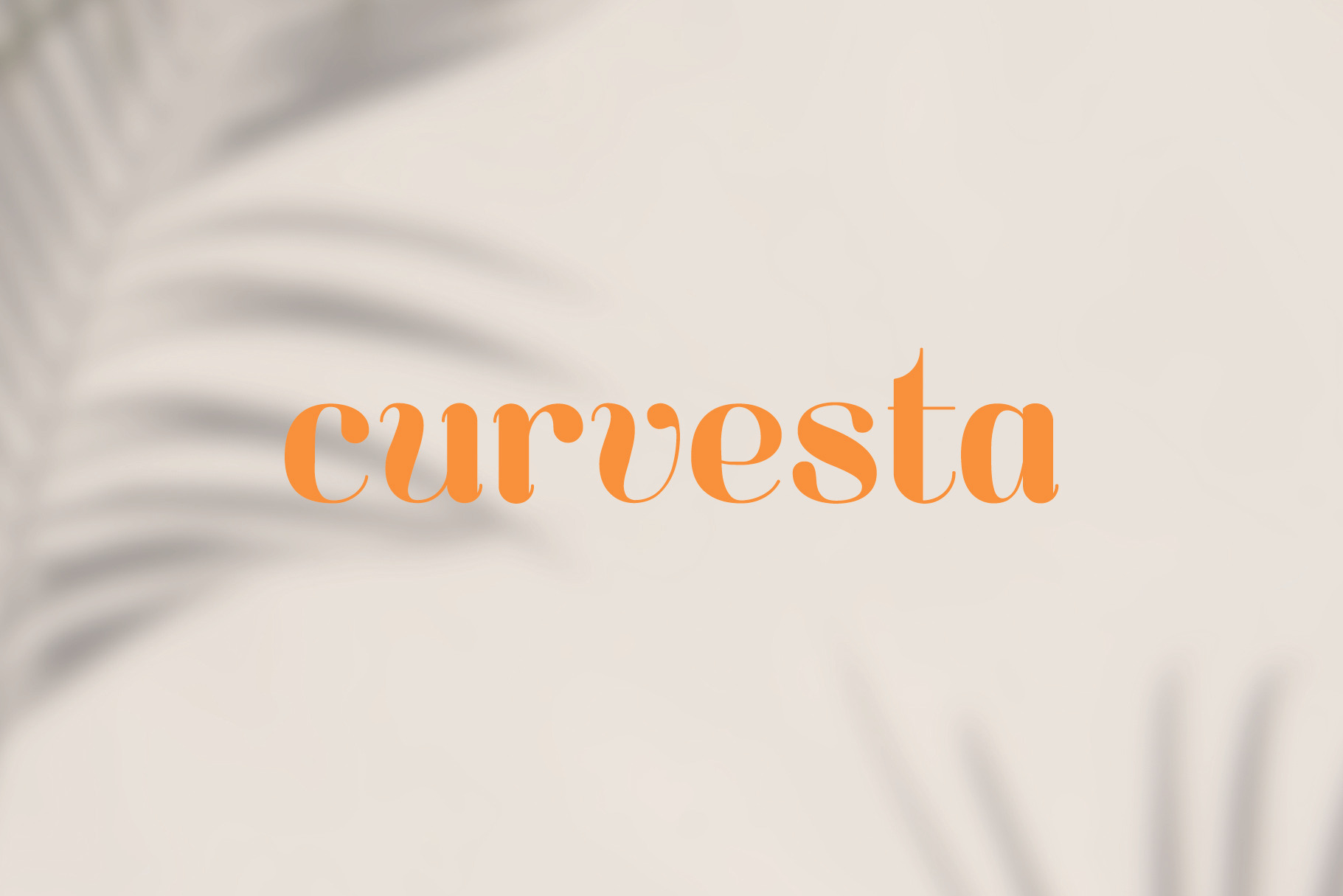
Curvesta – Display Font
Introducing Curvesta font by We are colt.
Combining classic serifs with curvy features, the Curvesta poster/display font has lots to offer. It’s a real modern classic!
This set includes uppercase and lowercase letters, numerals, a range of punctuation and ligatures. Free shadow set included.
This font will add a really unique and bespoke finish to your project.